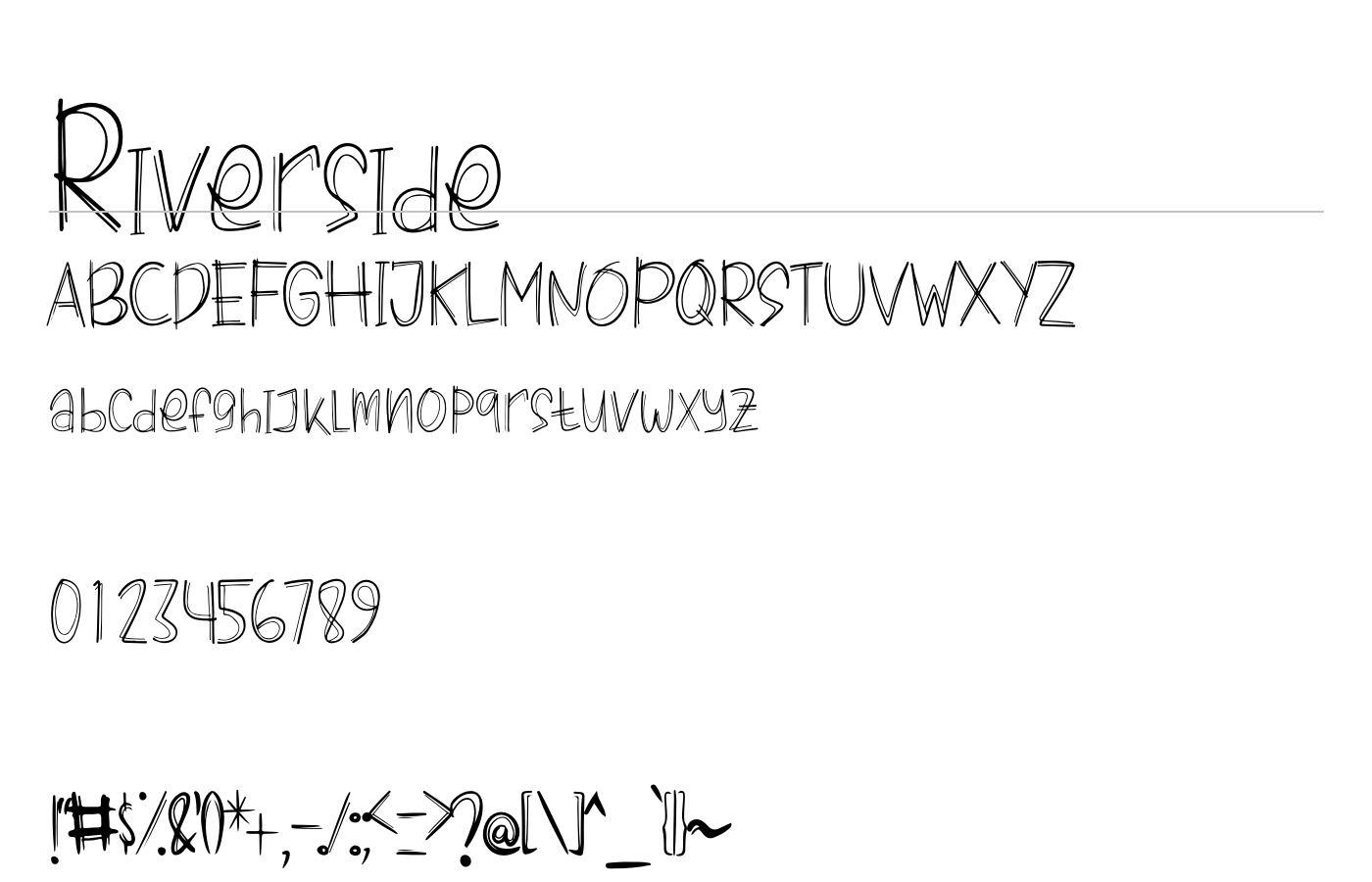
Riverside is a quirky, hand-drawn sans serif font that features tall, narrow letterforms with playful, sketch-like strokes and uneven lines. Its slender, whimsical design lends a casual and artistic feel, making it ideal for creative projects, children’s books, or informal branding where a fun and approachable personality is desired. The font works best in headlines, logos, and decorative text where its unique charm can shine without compromising readability.
Riverside Font
About Riverside Font
| Font family | Riverside Font |
| Designer | Fajar Wicaksono |
| Trademark | Booga Letter |